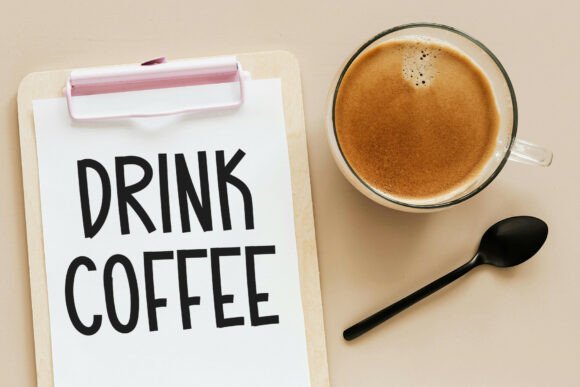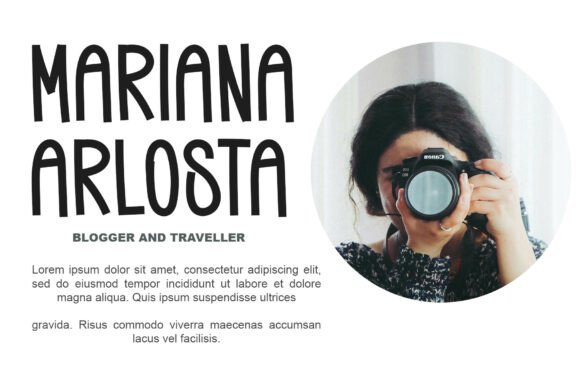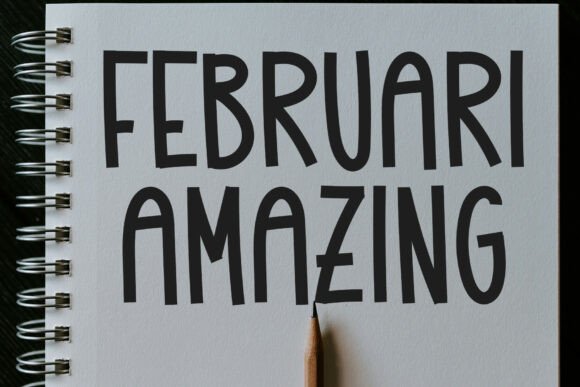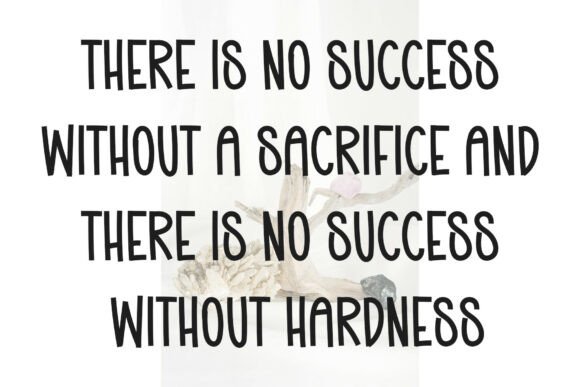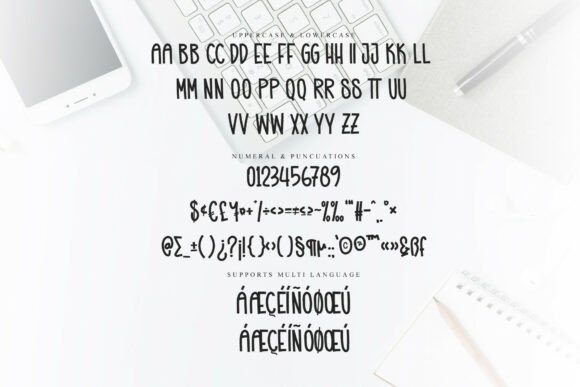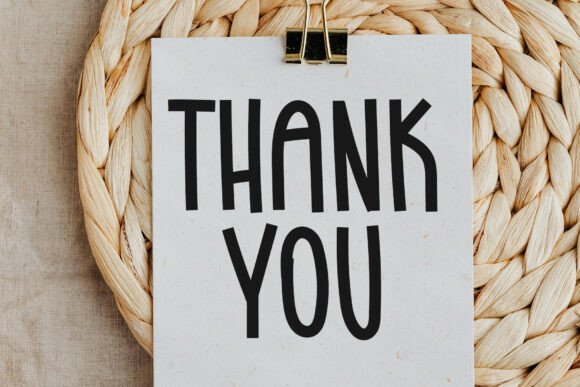
Introduction to Honey Maddison Font
Honey Maddison – A Playful & Bold Modern Display Font Introducing Honey Maddison – a high-energy, playful display font that commands attention with its bold strokes and contemporary flair.
Perfect for headlines, logos, posters, and any design needing a punch of personality, this Bold Modern Display Font combines fun and functionality for standout visuals Whether you’re creating eye-catching merch, vibrant ads, or playful packaging, Honey Maddison delivers boldness with a modern edge.
Key Features of Honey Maddison Font
Why Choose Honey Maddison Font?
Honey Maddison Font offers exceptional quality and versatility, making it a valuable addition to your design toolkit. Whether you’re creating for personal projects or commercial use, Honey Maddison Font delivers professional results.